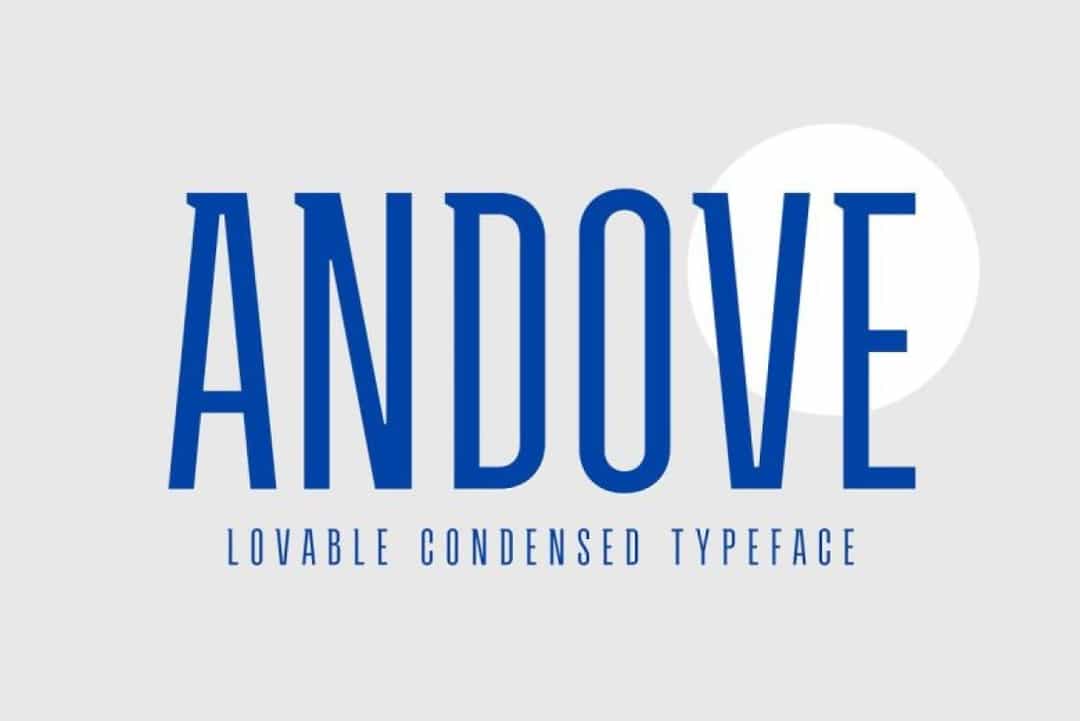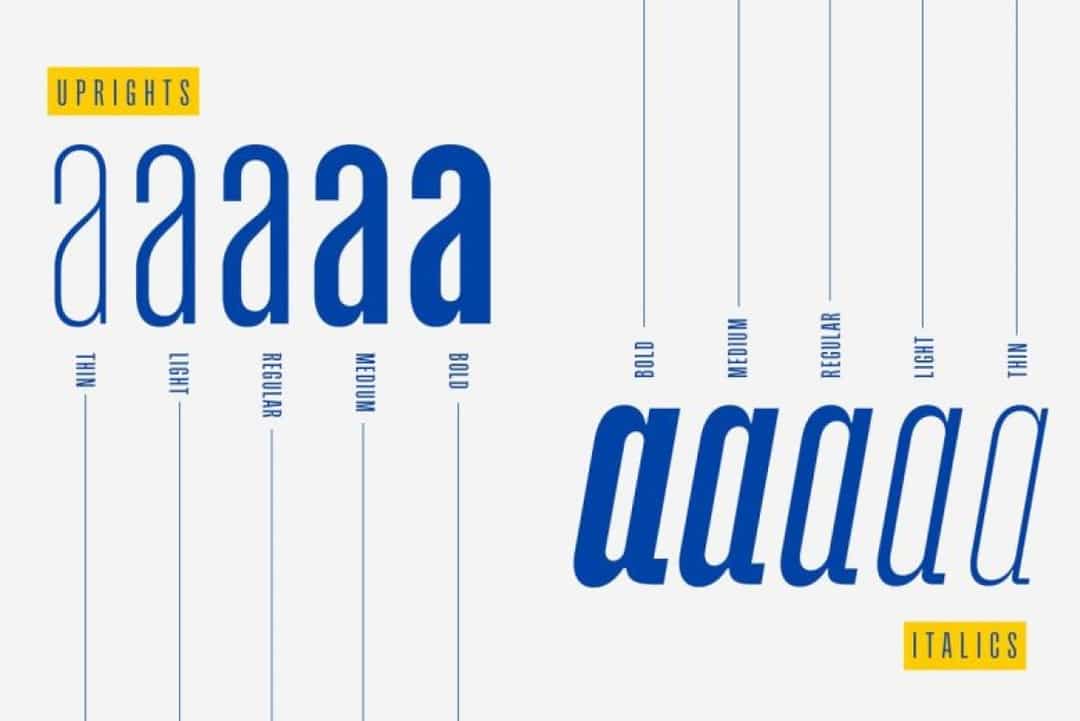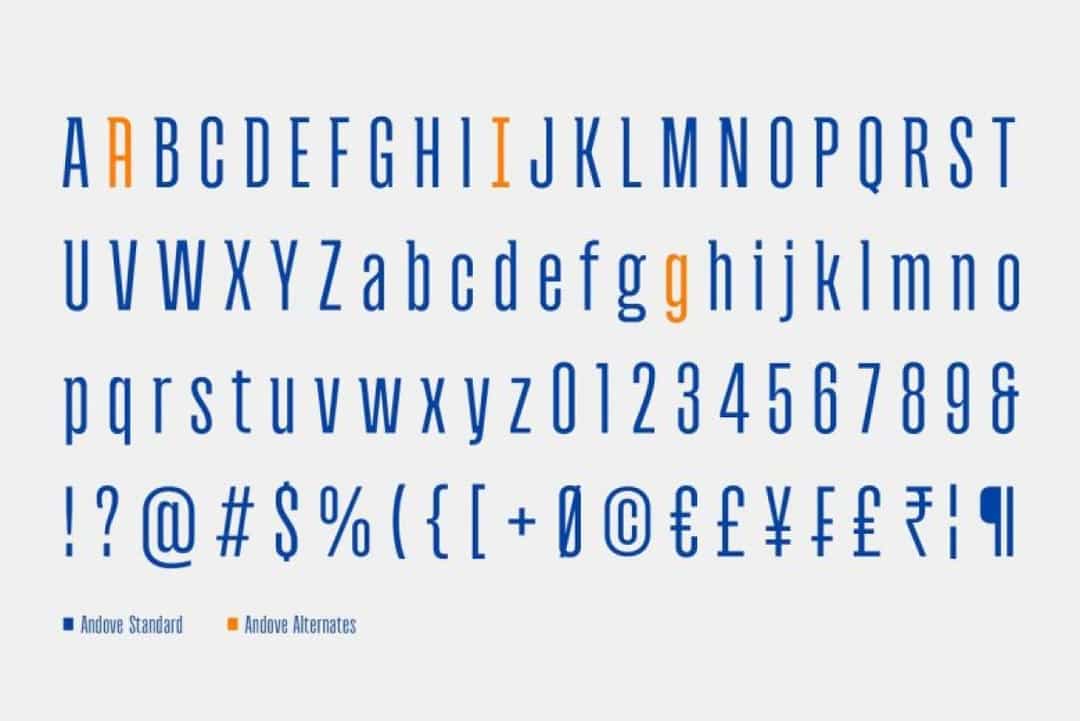
Andove is a lightweight sans font family with extremely compact compression. Boasting small characters and an average x-height, Andove works great for large typesetting applications with its one-sided ascenders serifs making this font memorable and sporty yet sturdy enough.